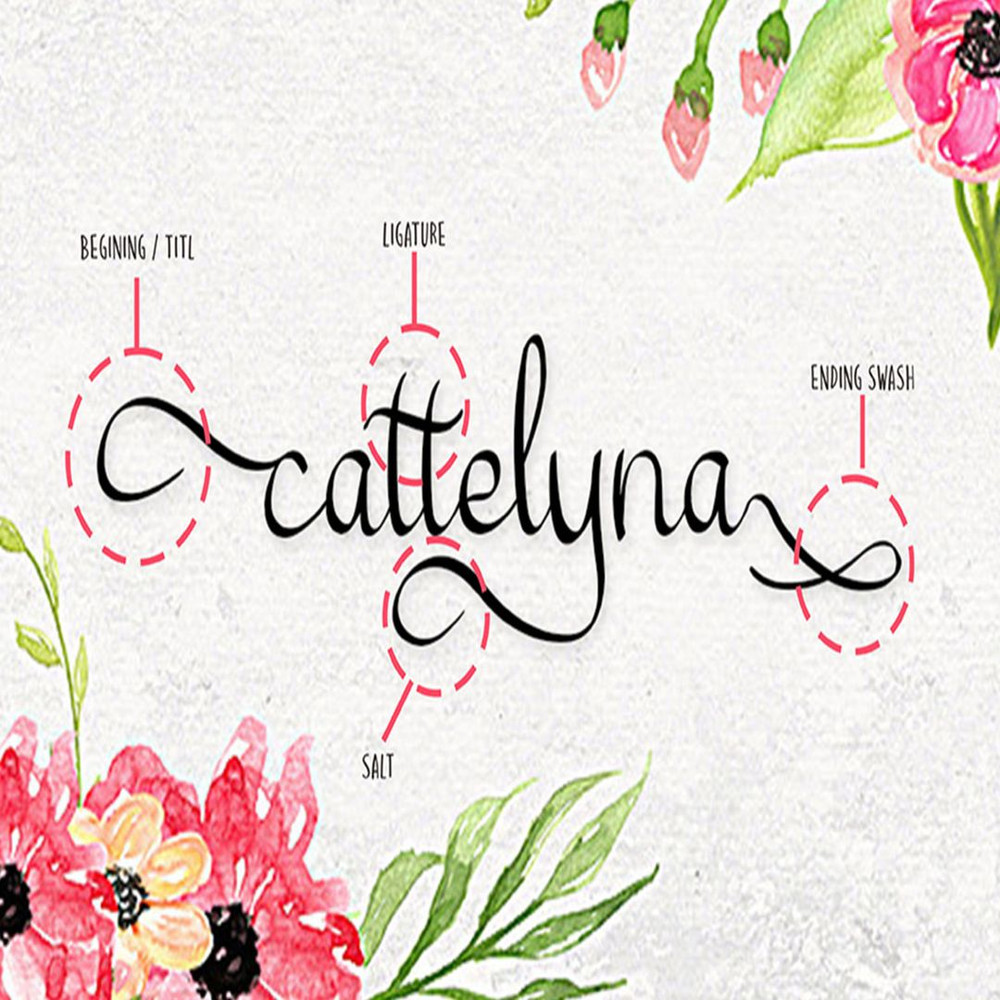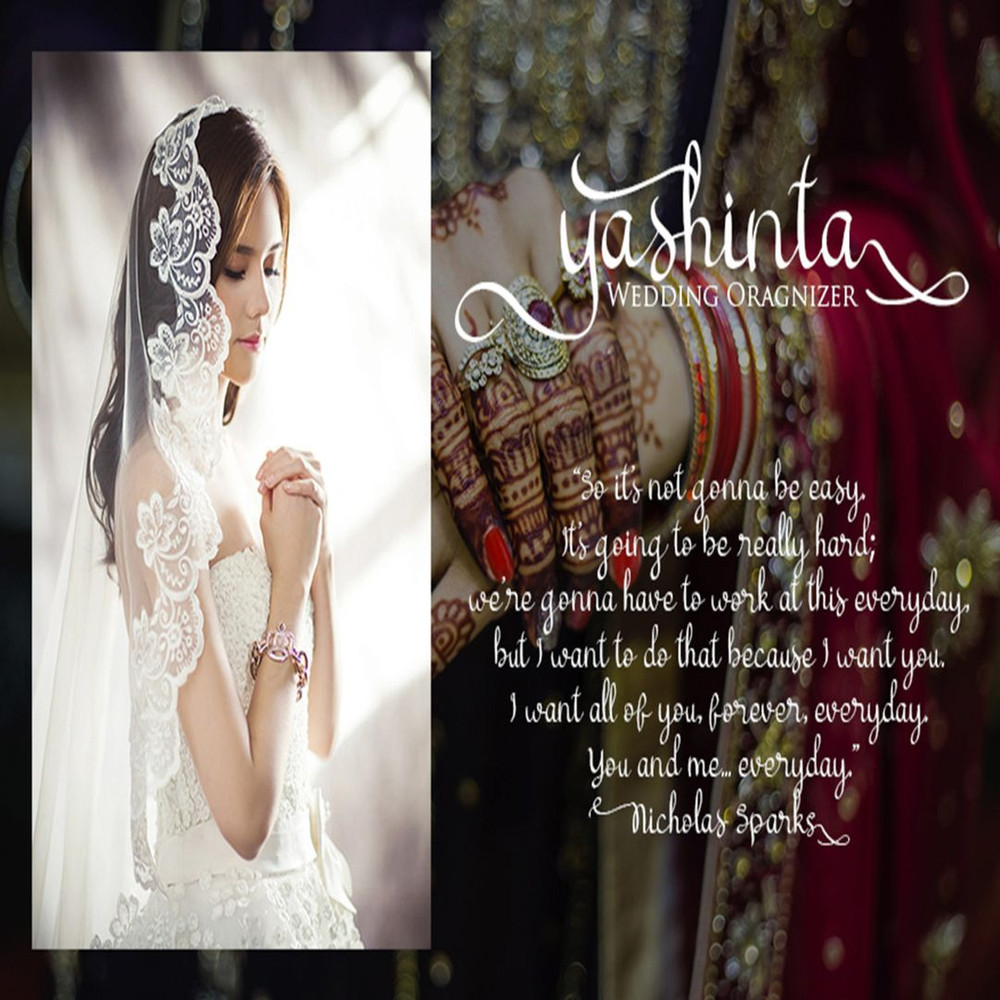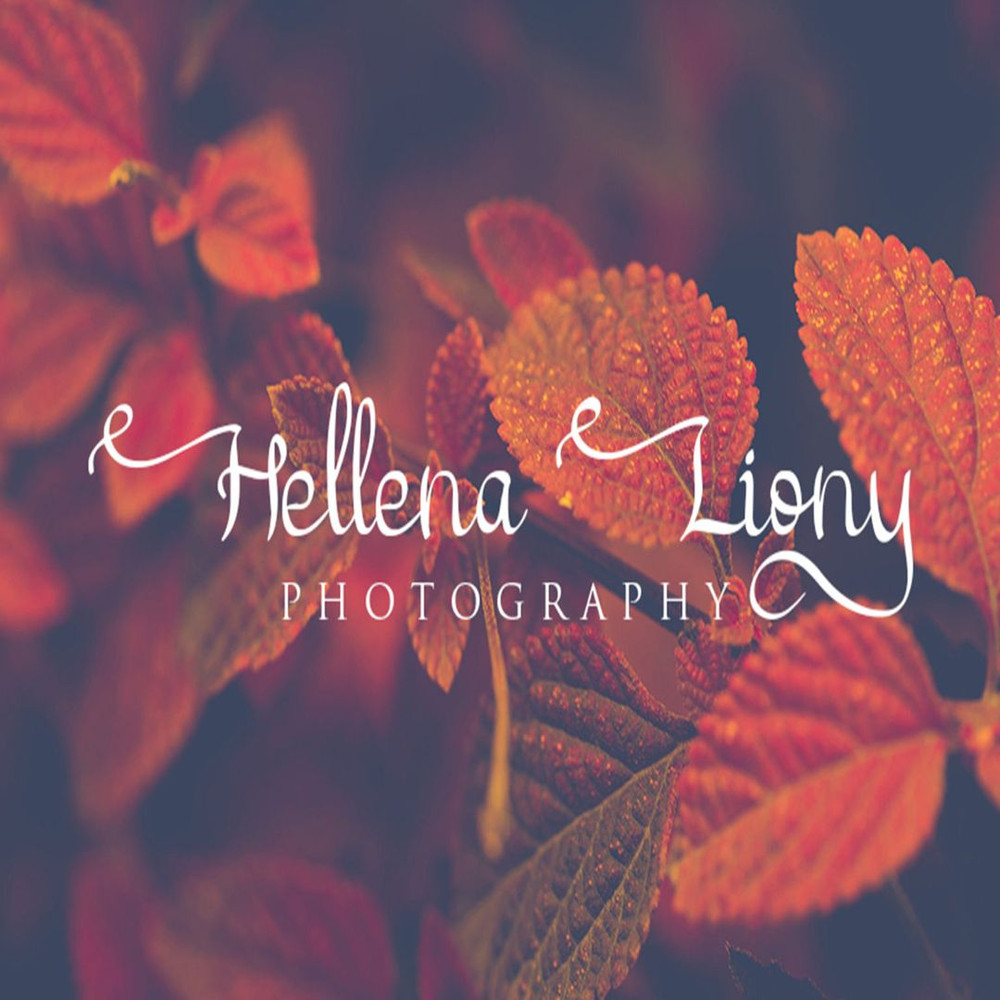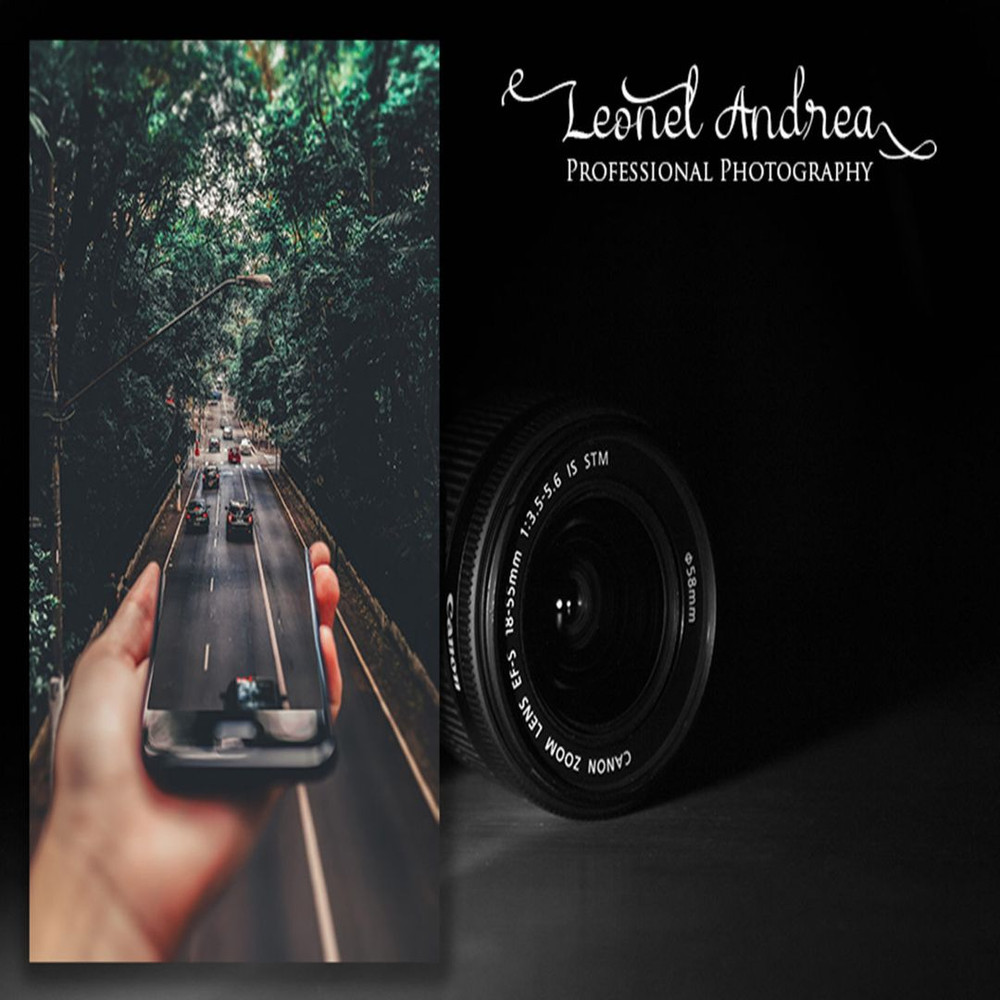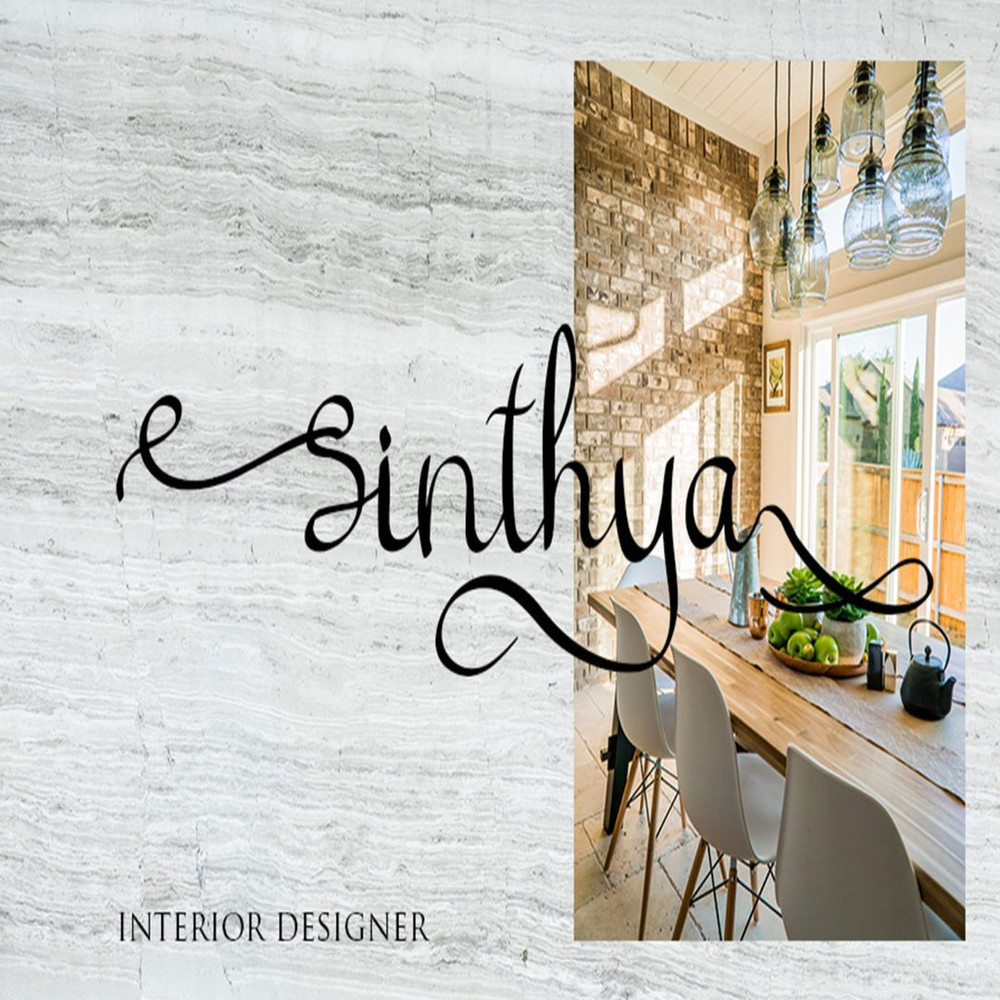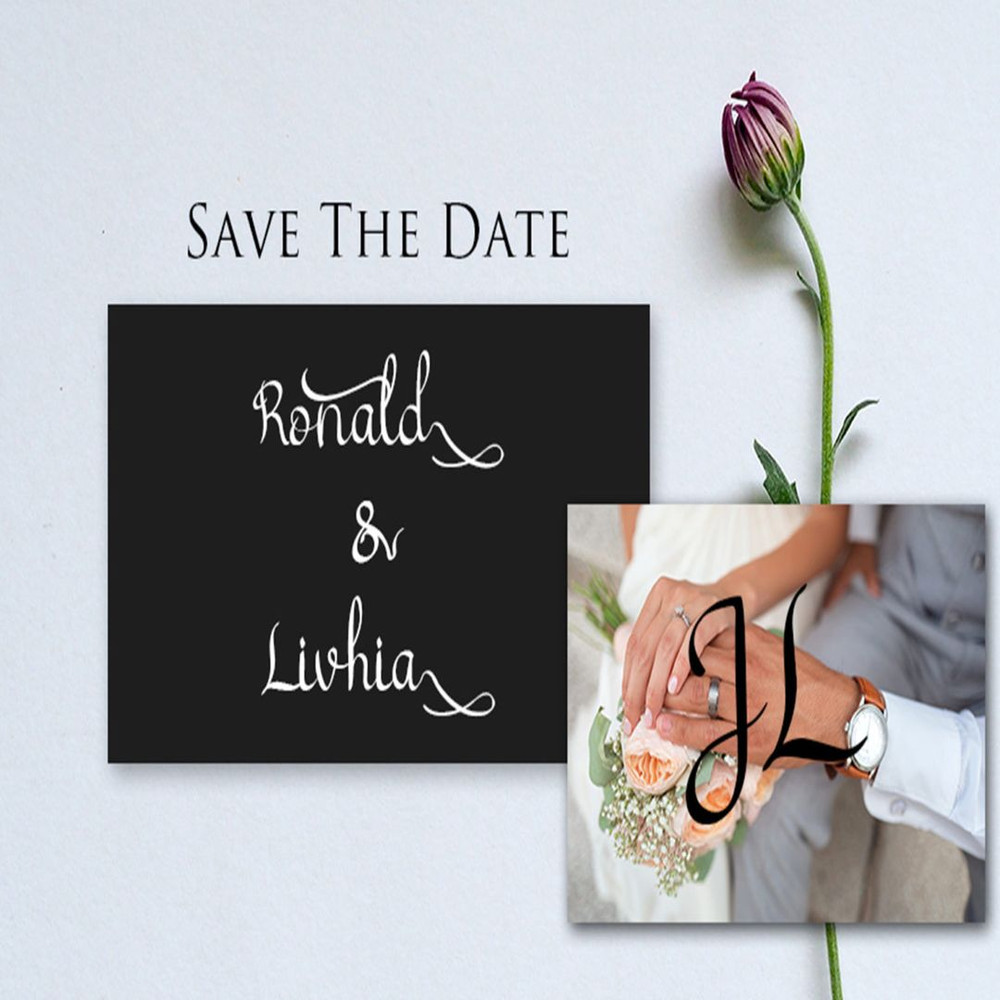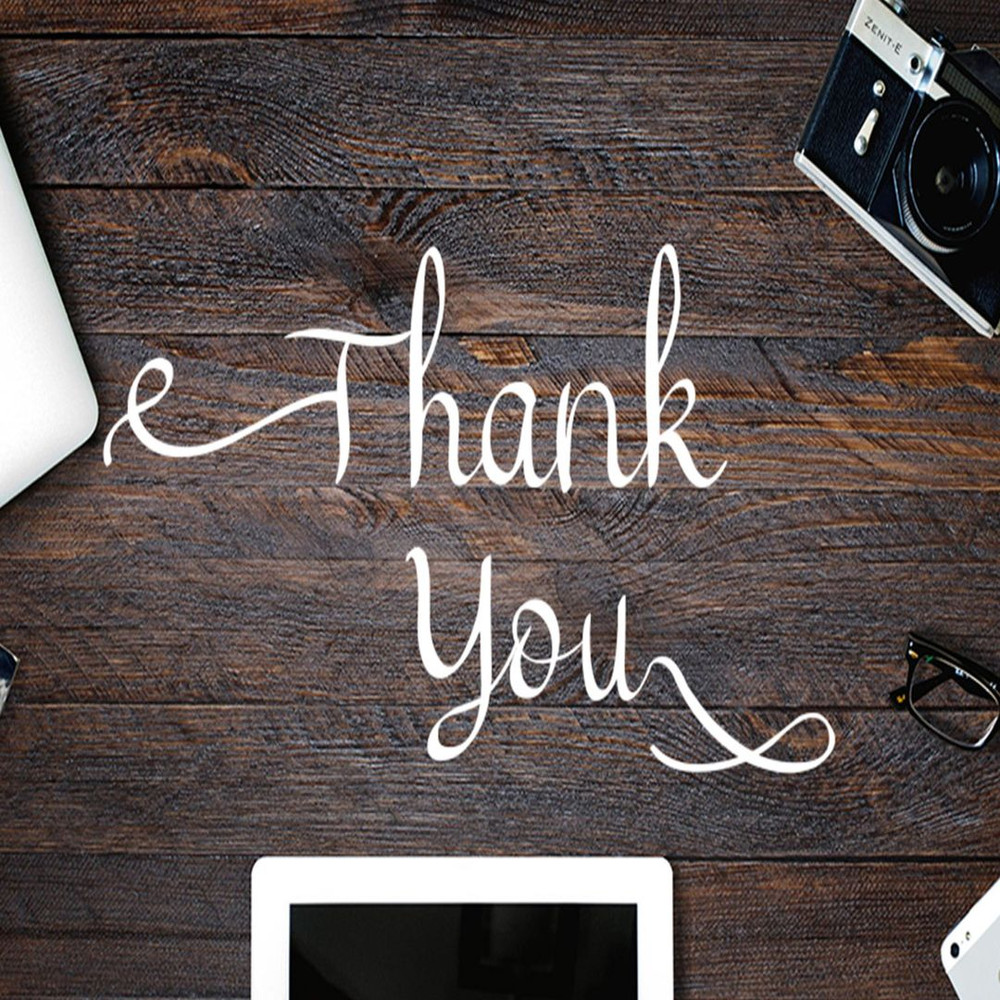
Cattelyne Trending Fonts - Digital Font
The Cattelyna is a modern beautiful typeface. It’s perfect for feminine, elegant, and luxurious designs and It has a fresh and modern look which be used for greeting cards, branding materials, quotes, posters, and much more.
Cattelyne Trending Fonts - Digital Font
The Cattelyna is a modern beautiful typeface. It’s perfect for feminine, elegant, and luxurious designs and It has a fresh and modern look which be used for greeting cards, branding materials, quotes, posters, and much more.